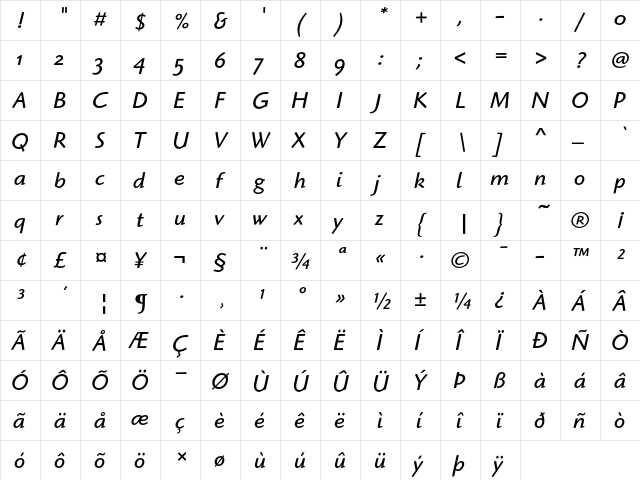
Highlander ITC Book Italic OS
Design Context for Highlander ITC Typeface
Highlander ITC takes a measured approach to typography — its balanced proportions and neutral character make it a reliable workhorse for both digital and print work. The dynamic lean of this cut emphasises speed and emphasis in any layout.
Pro Tip: Use Highlander ITC for emphasis, pull quotes, and subheadings where its slanted energy can add rhythm to the layout.